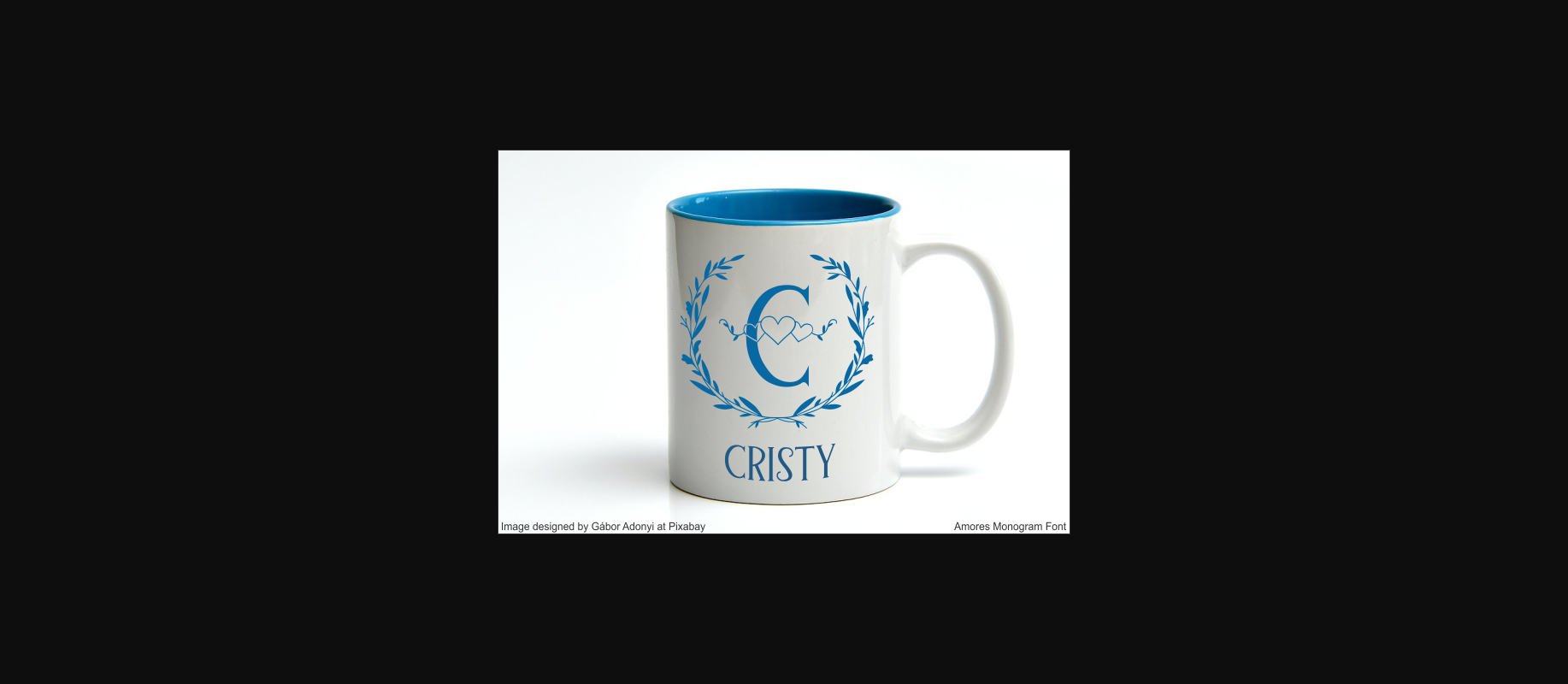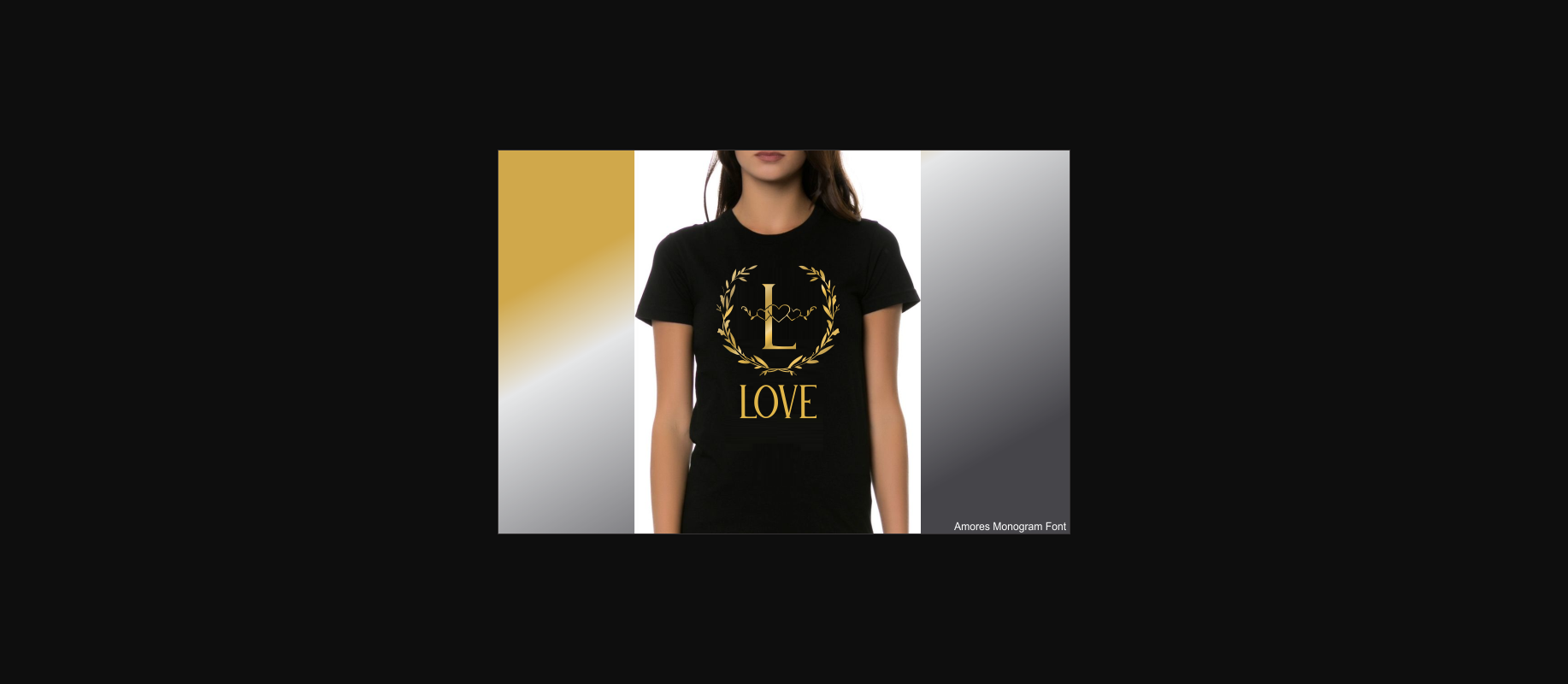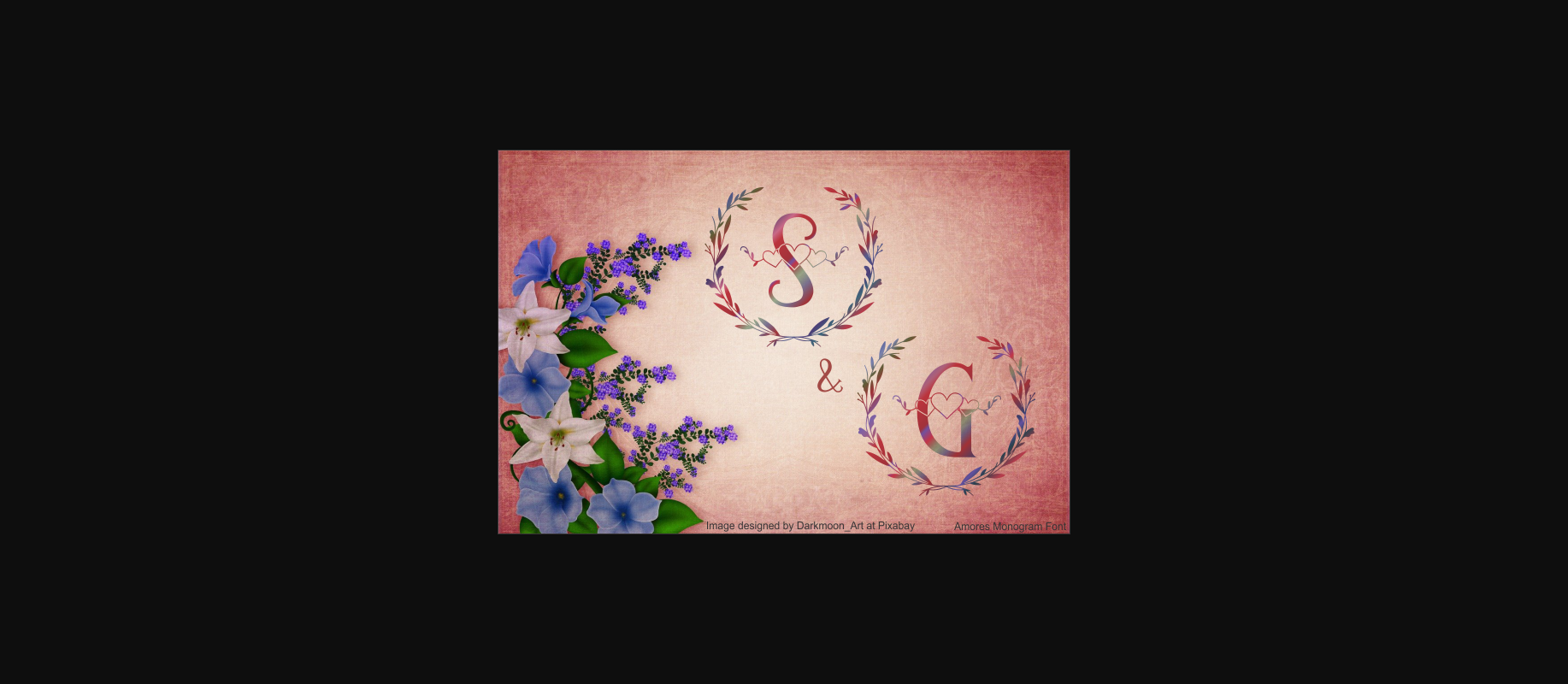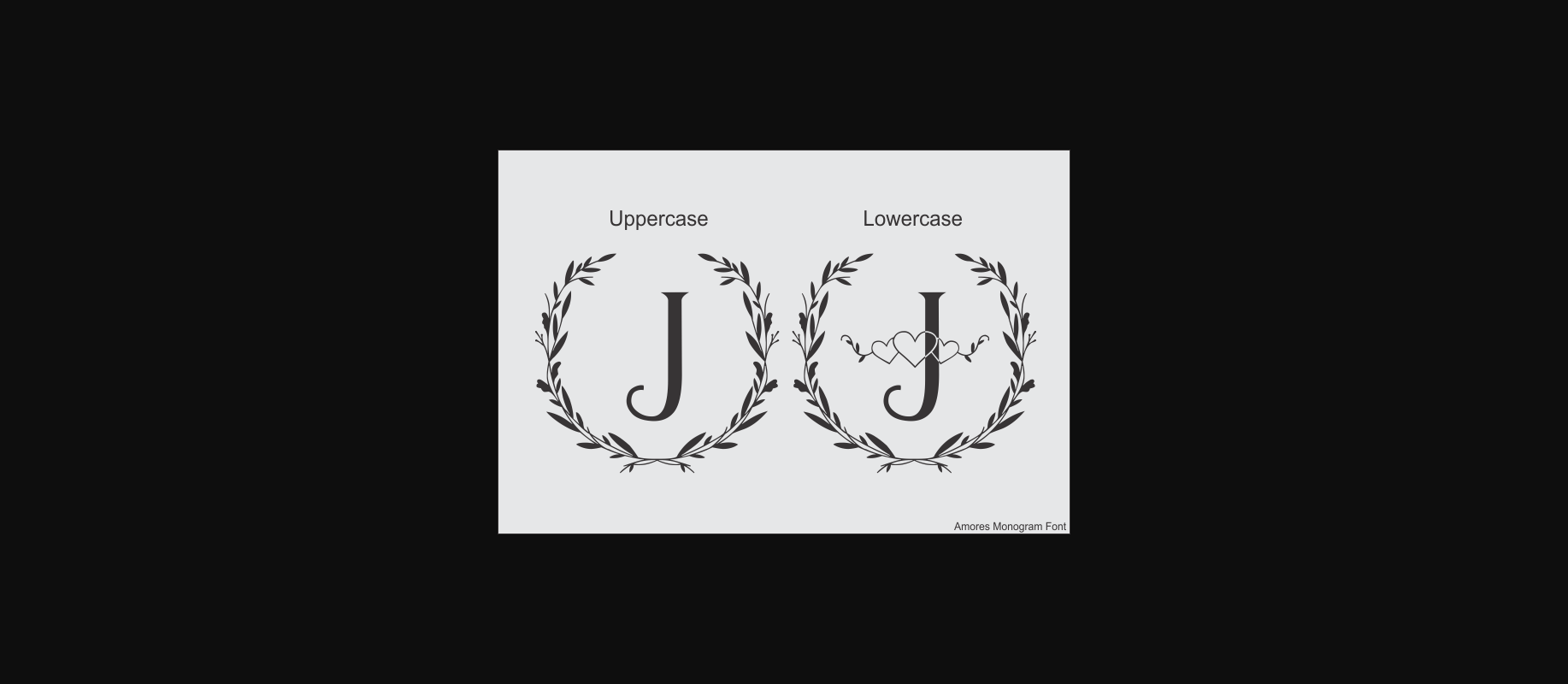
About Amores Monogram Font
Amores Monogram is a pure and elegant decorative font. Add this romantic and lovely looking font to each of your love letters, wedding invitations or favorite design ideas, and you will be astounded by the outcome.